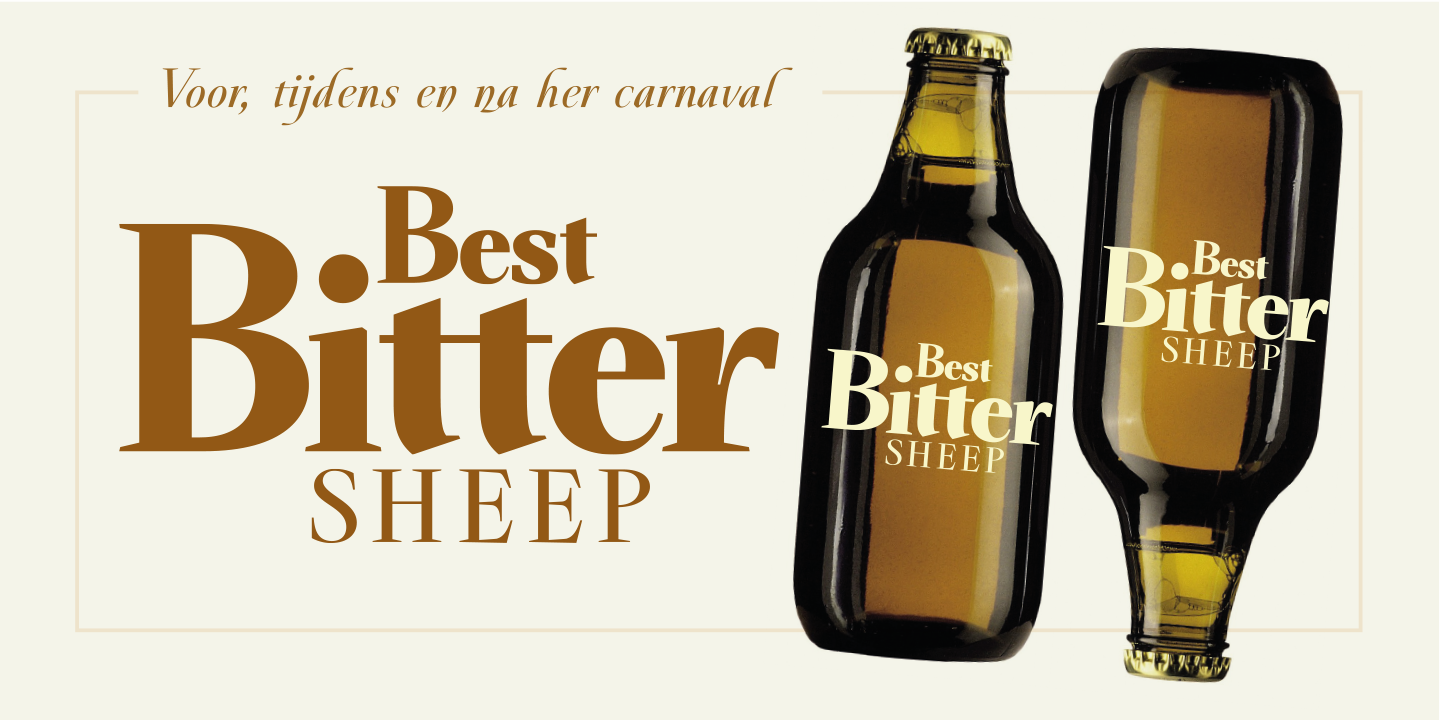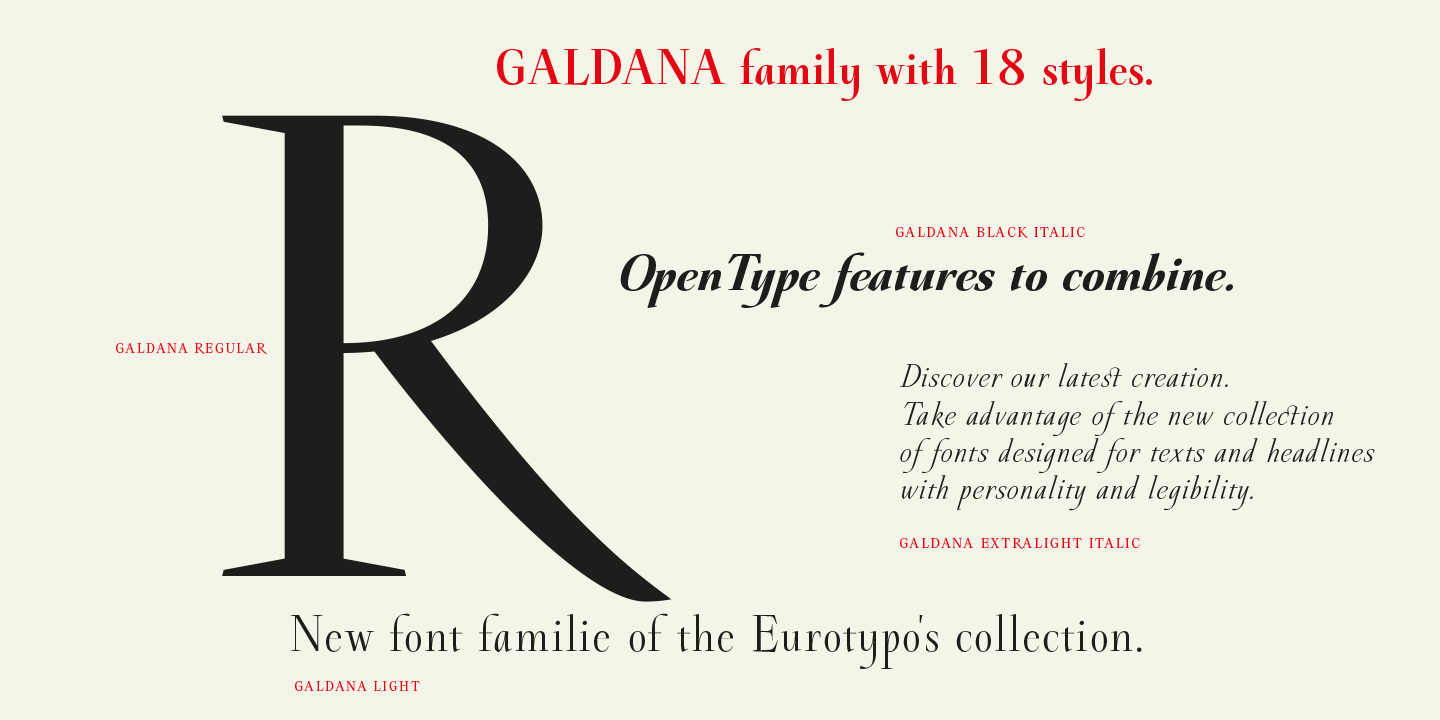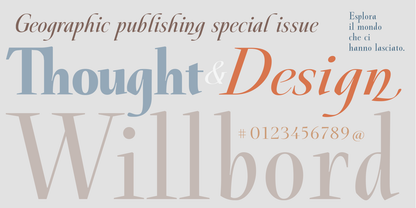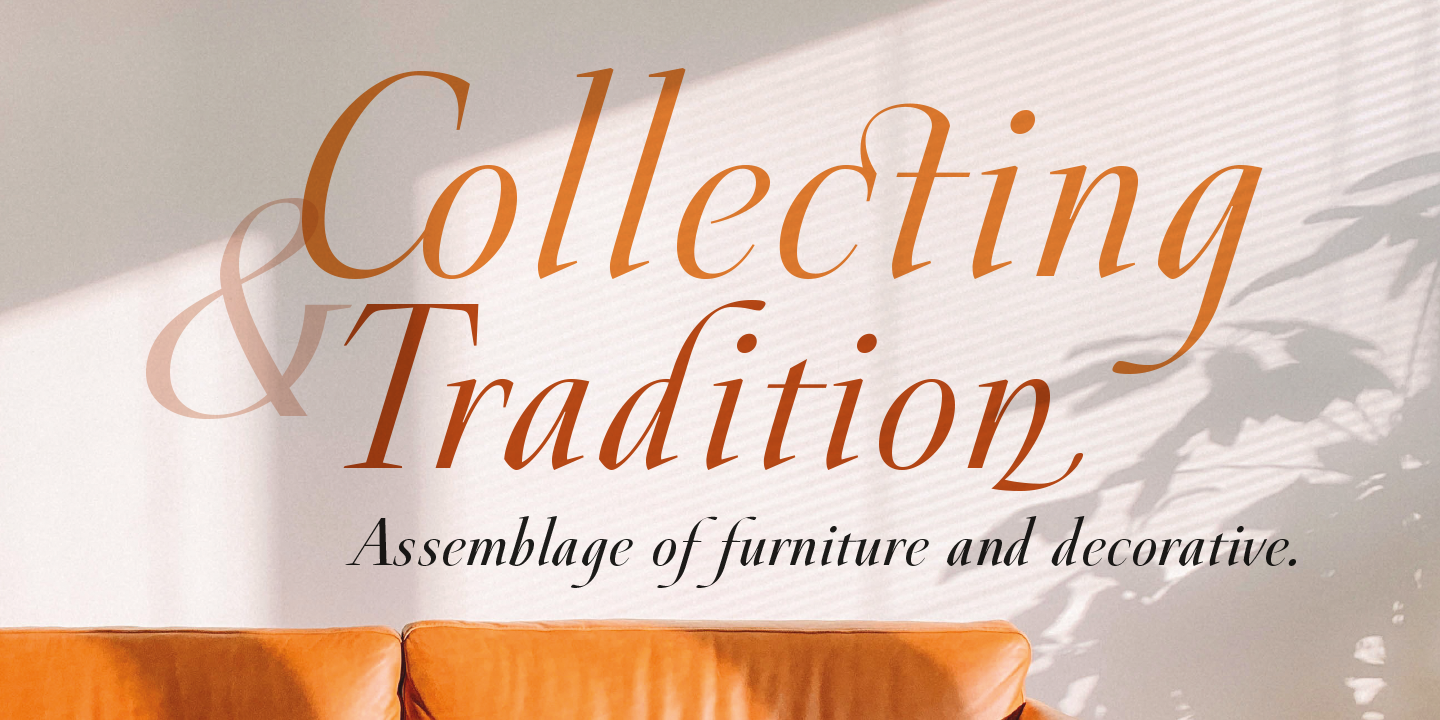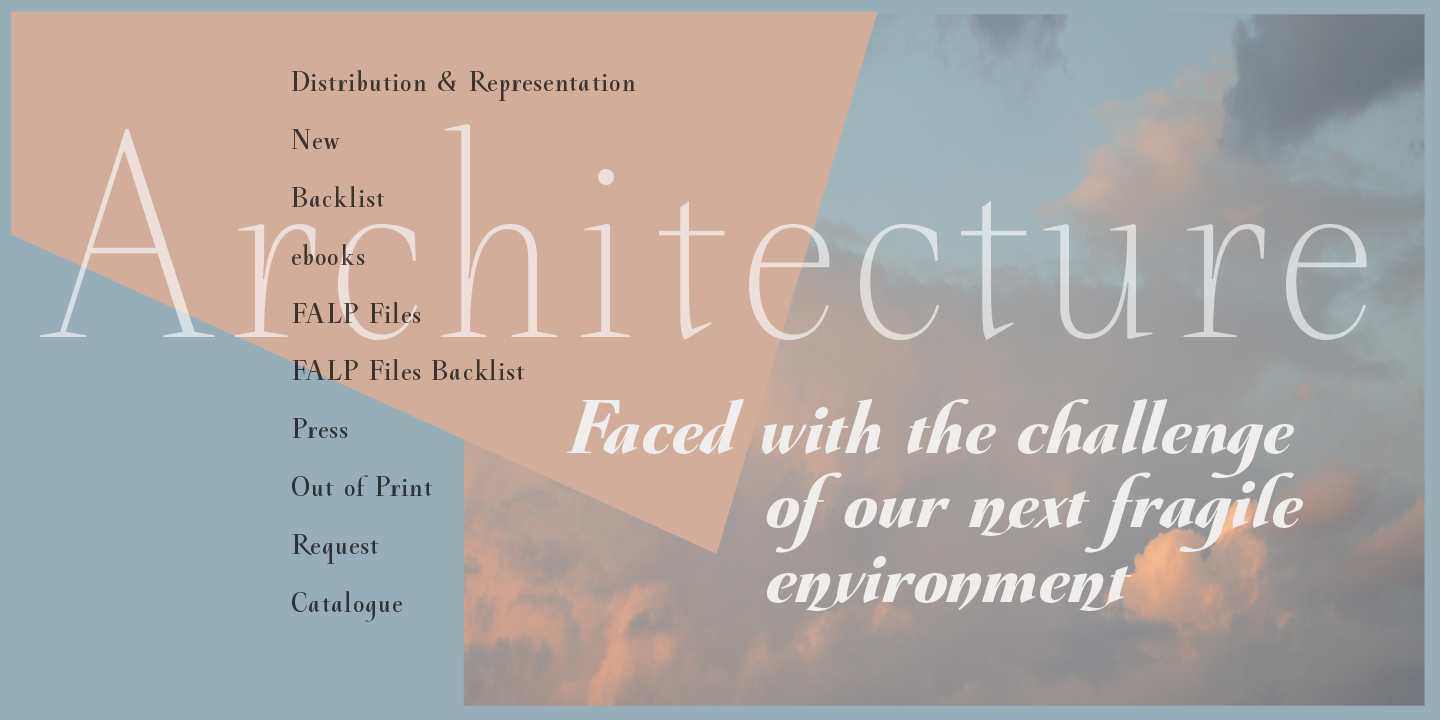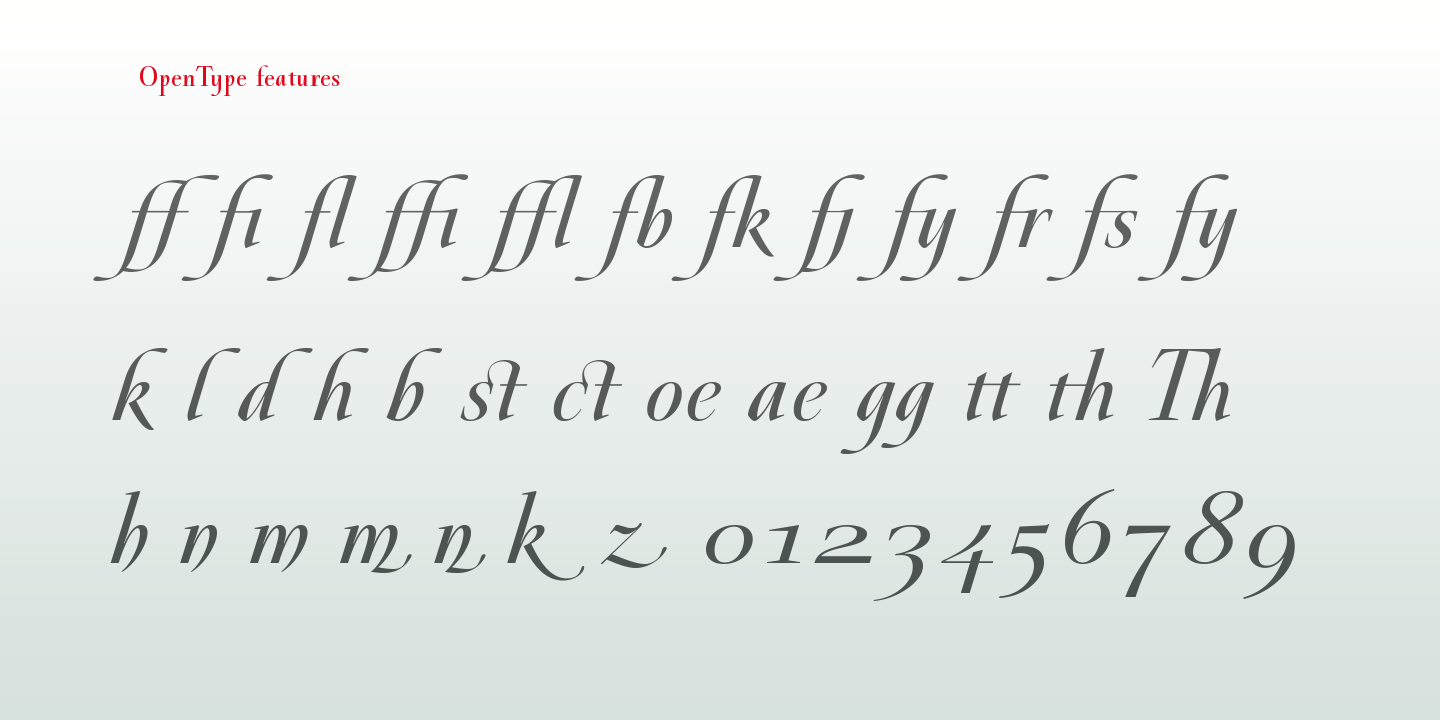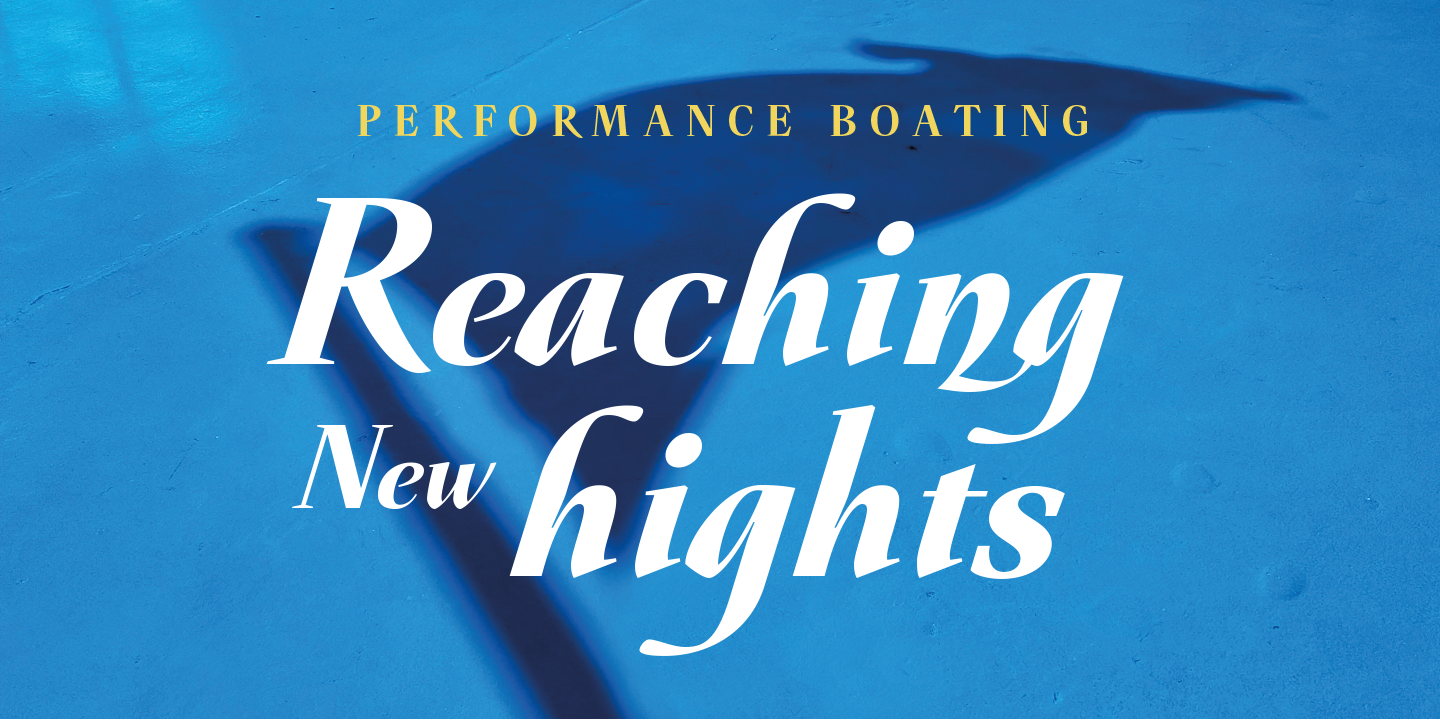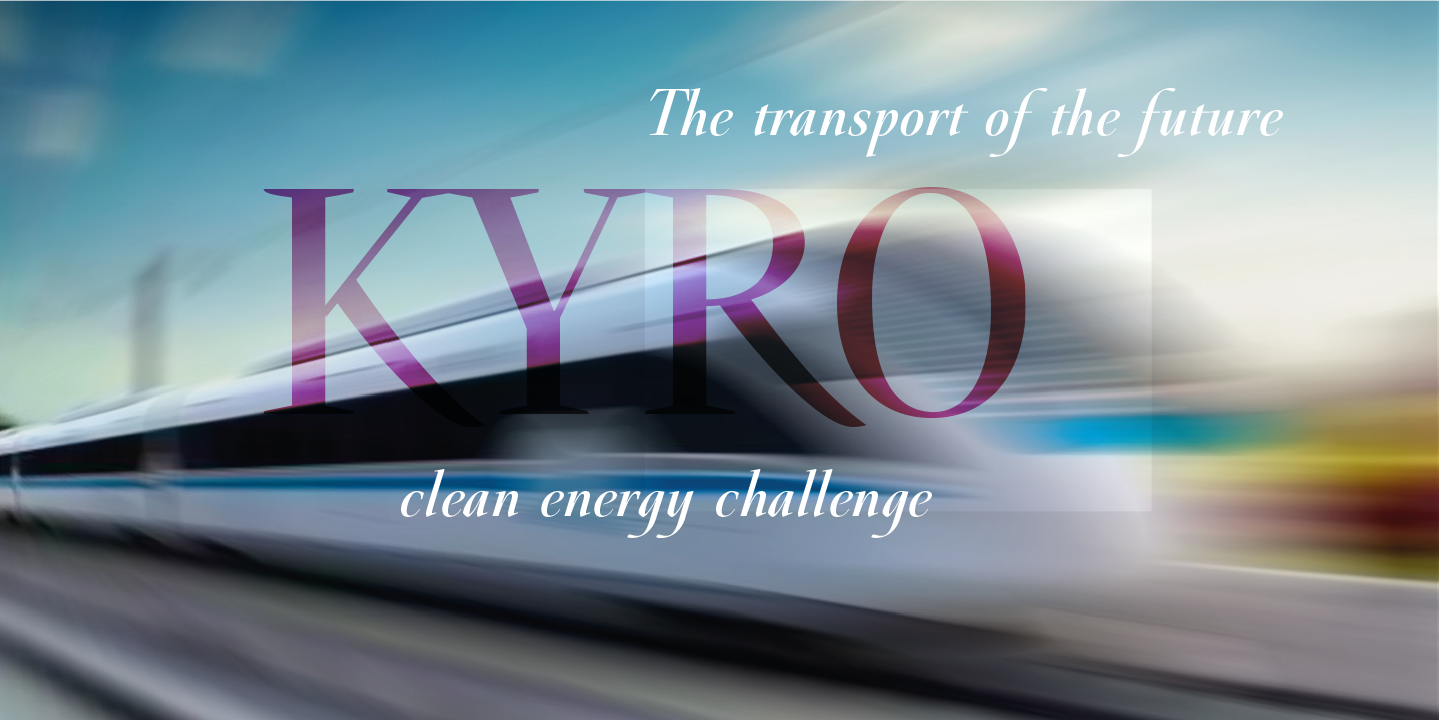
Galdana
Galdana is a Roman serif type family distinguished by its expressive and unmistakable true italic, featuring a bold 17-degree slant that gives the typeface a strong sense of movement and personality. This defining characteristic sets Galdana apart from conventional serif families and brings a vibrant, calligraphic energy to both editorial and display typography. The design is inspired by the work of Oscar Ogg, one of the most influential American calligraphers and book designers of the twentieth century, whose legacy is reflected in the typeface’s refined rhythm and elegant stroke modulation.
The Galdana family consists of 18 styles, ranging from Thin to Fat, offering a wide typographic palette suitable for complex editorial systems, branding, and sophisticated print and digital applications. Its well-balanced Roman styles ensure clarity and stability in continuous text, while the dynamic italics add emphasis and expressive contrast without sacrificing readability.
Galdana is fully equipped for professional typography, featuring extensive multilingual support and a rich set of OpenType features. Designers can take advantage of stylistic alternates, swashes, and ligatures to enhance typographic expression and create distinctive, high-quality layouts with ease.
Complementing the main family, Galdana Caption is a specialized subfamily designed for headlines, lead text, and primary typographic roles, as well as for seamless combination with Galdana Text. The Caption family includes four styles: Regular, Italic, Fat, and Fat Italic. Its italics preserve the signature 17-degree slant, combined with shorter ascenders and descenders, delivering a compact structure and a dynamic calligraphic flavor ideal for display use and tighter layouts.
Like the main family, Galdana Caption offers full multilingual support and advanced OpenType features, ensuring consistency and flexibility across all typographic applications.
Galdana is an excellent choice for designers seeking a serif type family with strong character, historical inspiration, and contemporary versatility—perfect for editorial design, branding, book typography, and expressive headlines in both print and digital environments.